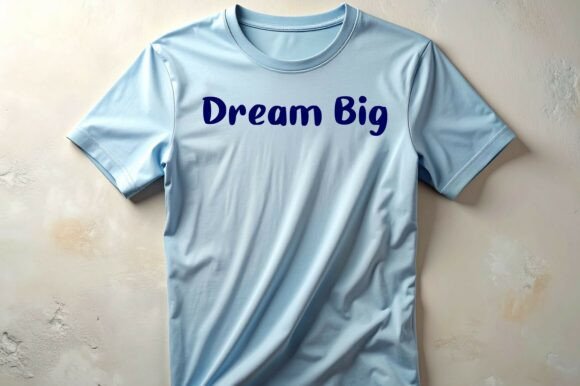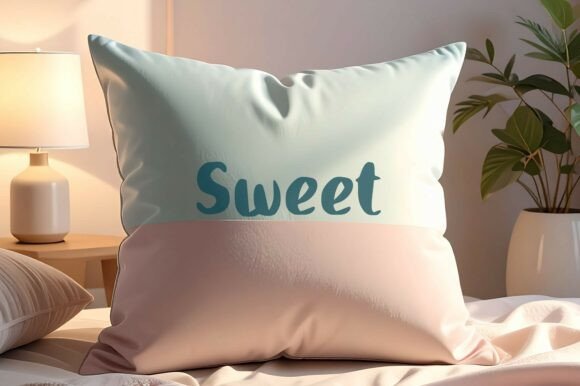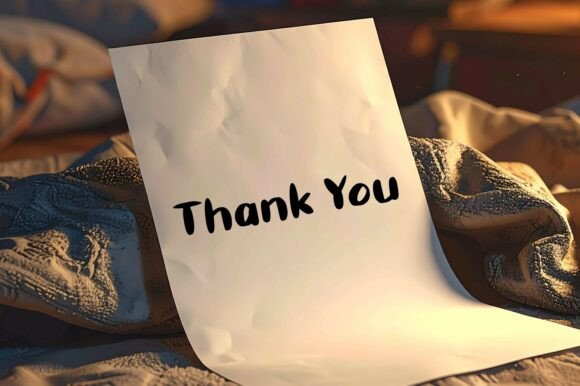
Introducing Bed Pillow Font: The Ultimate Symbol of Coziness and Comfort
Are you looking for a font that embodies the feeling of warmth, comfort, and relaxation? Look no further than the Bed Pillow font, a wonderfully soft and comforting display font designed to bring a sense of peace and tranquility to your creative projects. With its rounded, plush letterforms and slightly irregular baseline, Bed Pillow is the perfect choice for designers and crafters seeking to evoke a sense of coziness and approachability.
The Characteristics of Bed Pillow Font
Bed Pillow font boasts a unique set of characteristics that make it stand out from other fonts. Its rounded letterforms are reminiscent of a plush bed pillow, inviting users to sink into its softness. The slightly irregular baseline adds a touch of whimsy and playfulness, creating a sense of movement and energy. This distinctive combination of features makes Bed Pillow font an excellent choice for designs related to home decor, sleepwear, baby products, and comfort brands.
Ideal Uses for Bed Pillow Font
Bed Pillow font is incredibly versatile and can be used in a wide range of creative projects. Some ideal uses for this font include:
- Home Decor: Use Bed Pillow font to add a touch of warmth and coziness to your home decor designs, such as bedding, curtains, and wall art.
- Sleepwear: Create comfortable and inviting sleepwear designs with Bed Pillow font, perfect for pajamas, blankets, and other bedtime essentials.
- Baby Products: Add a touch of sweetness and innocence to your baby product designs with Bed Pillow font, ideal for baby blankets, onesies, and nursery decor.
- Comfort Brands: Use Bed Pillow font to create a sense of comfort and relaxation for your brand, perfect for logos, packaging, and marketing materials.
The Benefits of Using Bed Pillow Font
Bed Pillow font offers a range of benefits for designers and crafters, including:
- Emotional Connection: Bed Pillow font creates an instant emotional connection with users, evoking feelings of comfort, relaxation, and warmth.
- Unique Aesthetic: The font’s distinctive rounded letterforms and irregular baseline create a unique aesthetic that sets it apart from other fonts.
- Versatility: Bed Pillow font is incredibly versatile and can be used in a wide range of creative projects, from home decor to sleepwear.
- Ease of Use: Bed Pillow font is easy to read and use, making it perfect for both digital and print applications.
Tips for Using Bed Pillow Font Effectively
To get the most out of Bed Pillow font, follow these tips:
- Use it Sparingly: Bed Pillow font is best used sparingly, as a headline or title font, to create a bold and eye-catching effect.
- Pair it with Other Fonts: Pair Bed Pillow font with other fonts to create a unique and visually appealing combination.
- Experiment with Colors: Experiment with different colors to find the perfect combination that complements Bed Pillow font.
Bed Pillow font is a wonderfully soft and comforting display font that perfectly encapsulates a feeling of coziness, warmth, and gentle relaxation. With its rounded, plush letterforms and slightly irregular baseline, Bed Pillow font is the perfect choice for designers and crafters seeking to evoke a sense of peace and tranquility in their creative projects. Whether you’re designing home decor, sleepwear, baby products, or comfort brands, Bed Pillow font brings a tender, affectionate, and soothing charm to your work, making it feel instantly comforting and welcoming.